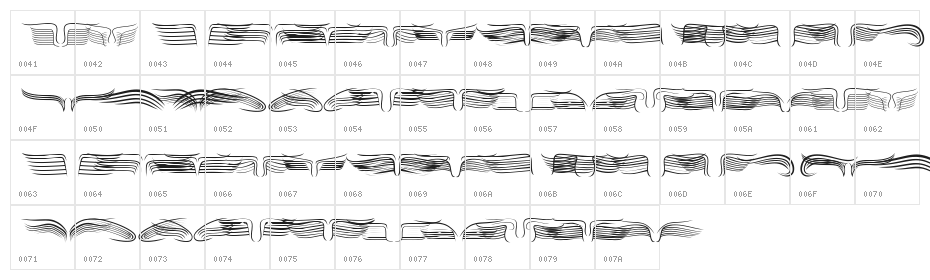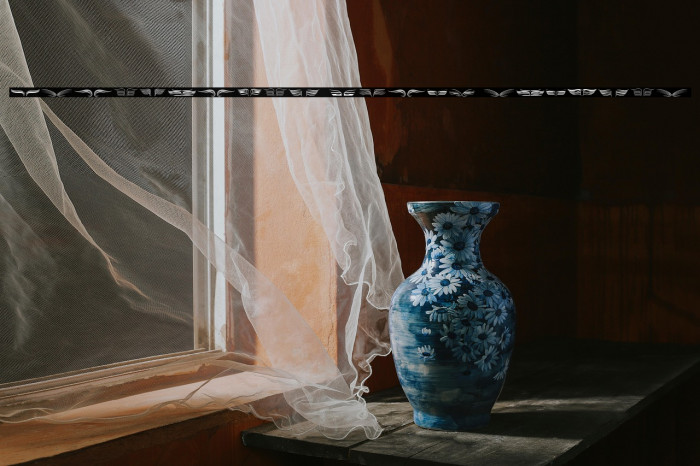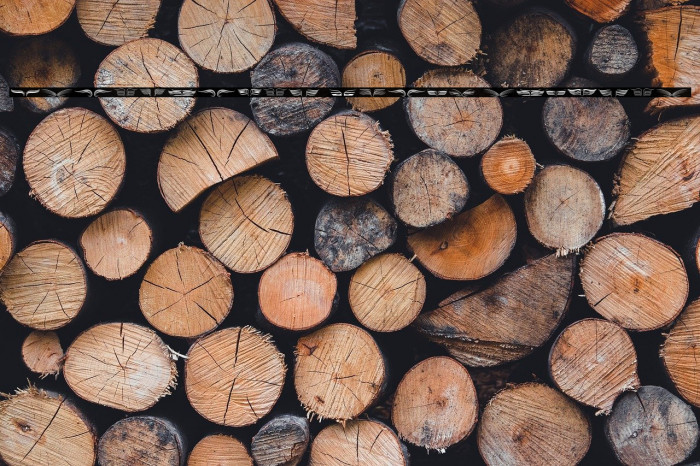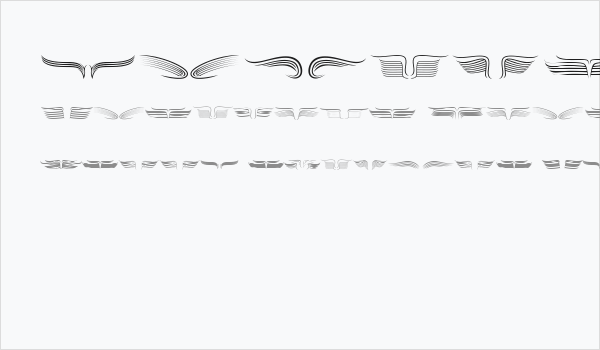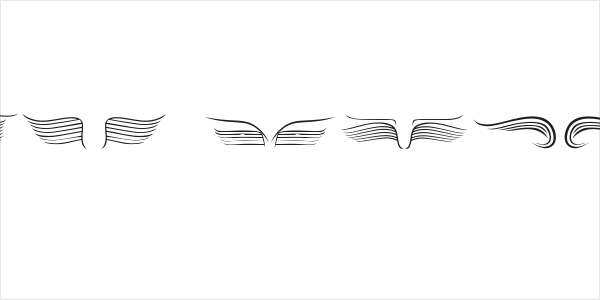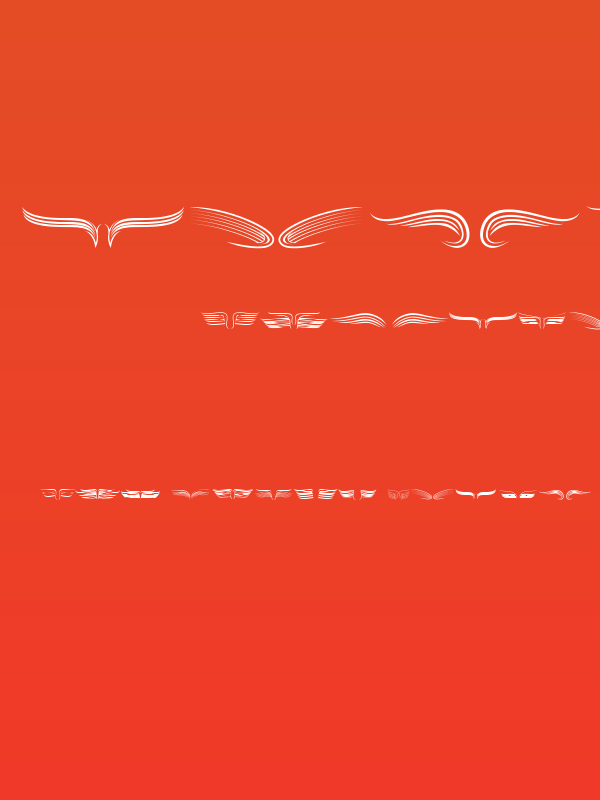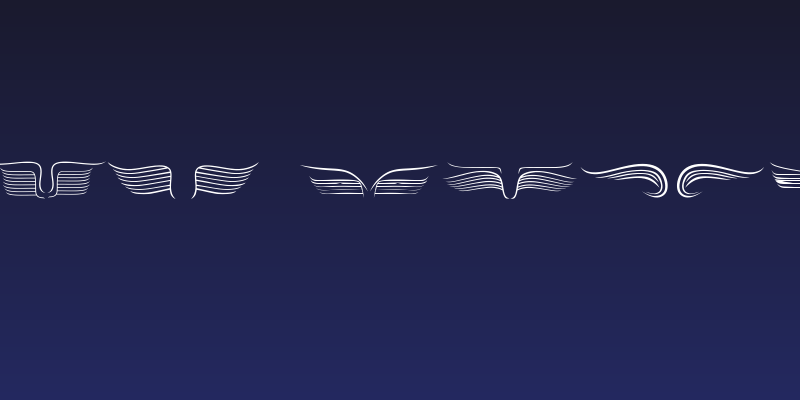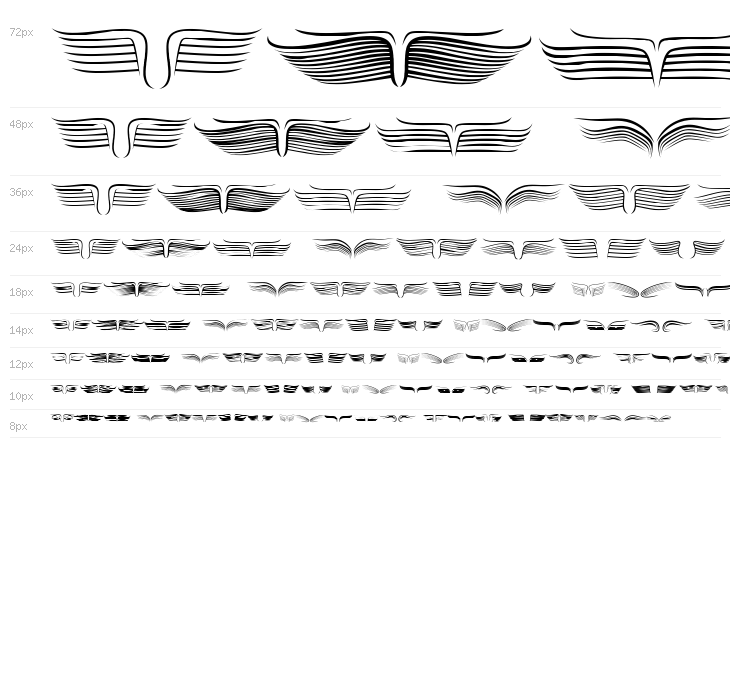
Ornamental Wings Regular Font
Ornamental Wings Regular Description
This font features a series of ornamental wing designs, each character resembling a unique set of stylized wings. The designs are intricate, with varying line thicknesses and curves that give each character a distinct and decorative appearance. The font does not follow traditional alphabetical or numerical patterns, instead offering a collection of artistic symbols that evoke a sense of flight and elegance. The characters are evenly spaced, allowing each design to stand out individually. This font is ideal for creative projects that require a touch of whimsy and artistic flair.
| Use Case | Logos, Decorative headings, Artistic projects |
| Proposed Projects | Ideal for use in artistic projects, fantasy-themed designs, invitations, and decorative headings. |